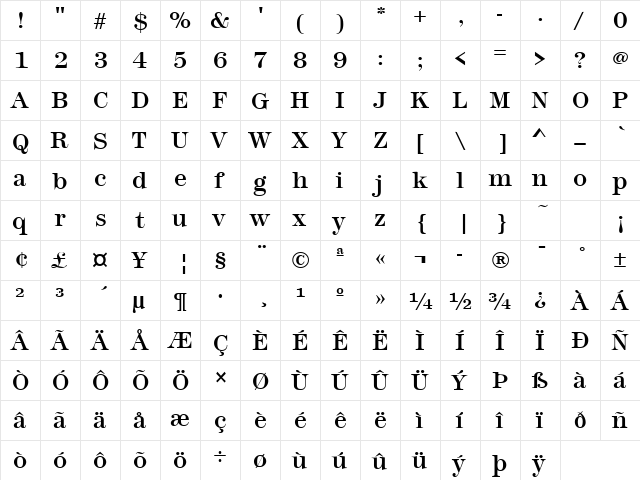
Modern327 Regular
Design Context for Modern327 Typeface
Modern327 is a composed and adaptable typeface that performs quietly and consistently across a wide range of design contexts.